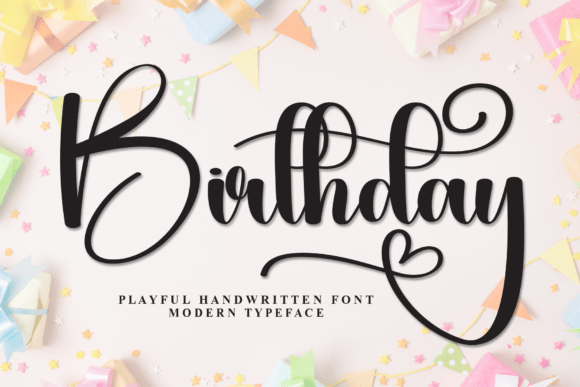
Happy Birthday to Your Designs: Introducing Birthday Font
Have you ever been tasked with designing a birthday card or party invitation, only to find yourself stuck for inspiration? You’re not alone! The pressure to create something truly special can be overwhelming. But what if you had a secret tool up your sleeve to make your designs shine? Enter Birthday Font, a joyful and charming handwritten script font that’s guaranteed to bring a festive vibe to any project.
Birthday Font is the perfect addition to any designer’s toolkit, offering a modern and friendly style that’s both eye-catching and approachable. Its whimsical swashes and heart detail on the final letter add a touch of personality that’s sure to delight. Whether you’re creating birthday cards, party invitations, or celebratory branding, Birthday Font is the perfect choice. With its versatility and charm, it’s a valuable asset for any designer looking to add a little extra magic to their designs.
Birthday Font Key Features
- Unique Characteristics: The Birthday Font is designed with colorful and playful characters, featuring birthday-themed icons and decorations.
- Script and Font Styles: The font includes a range of script and font styles, including bold, italic, and regular, to add variety to your designs.
Birthday Font Review
As a designer, I’m always on the lookout for unique and festive fonts to use for special occasions. The Birthday Font is one of the latest additions to my collection, and I must say it’s a mixed bag. Here are my thoughts:
- Unique and playful design that’s perfect for birthday invitations, cards, and party decorations.
- Good legibility, even at larger font sizes, making it suitable for posters and banners.
- Customizable color options allow for easy matching with party themes.
- May not be suitable for formal events or professional materials, as it’s quite playful and informal.
- Some characters, such as the ‘g’ and ‘q’, have slightly wonky shapes that may not be ideal for precise typography.
- Lack of comprehensive language support, which may limit its use for multilingual designs.
Overall, the Birthday Font is a fun and creative option for casual events, but it may not be the best choice for more formal or professional projects. If you’re looking for a playful font to add some personality to your designs, this might be worth considering.